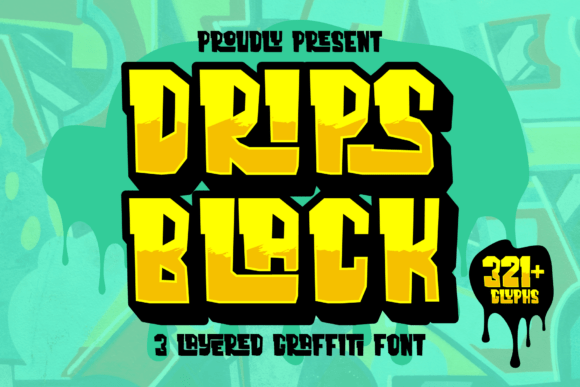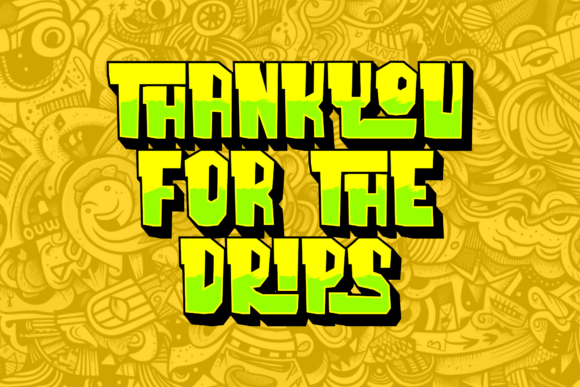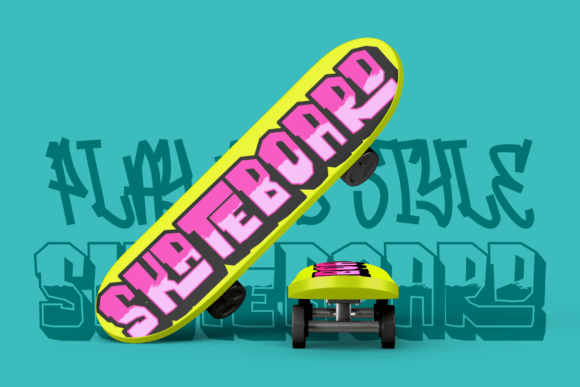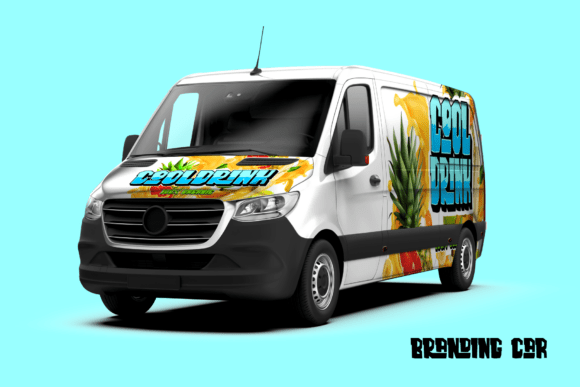
Dripsblack Graffiti Font
About the Dripsblack Graffiti Font
Crafted with precision, the Dripsblack Graffiti Font is ready to bring your ideas to life. Introducing Dripsblack – a multifaceted font featuring a unique mix of bold and delicate characters that engage in a striking balance on opposing ends. This powerful and contrasting font makes a strong statement, ideal for creating attention-grabbing logos, adding character to comic books, or sparking the imagination in children’s literature. Dripsblack includes a diverse set of ligatures and letter options, allowing you to craft a message that truly stands out. Not only does this dynamic font support a wide array of languages, but it is also readily available for immediate commercial use. Embrace Dripsblack and ignite your creative journey!
Dripsblack Graffiti Font Usage Examples
Dripsblack Graffiti Font Example